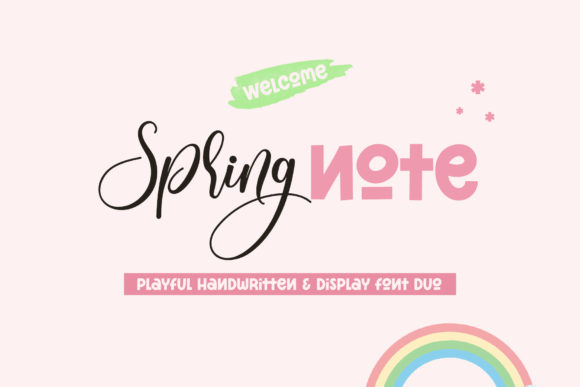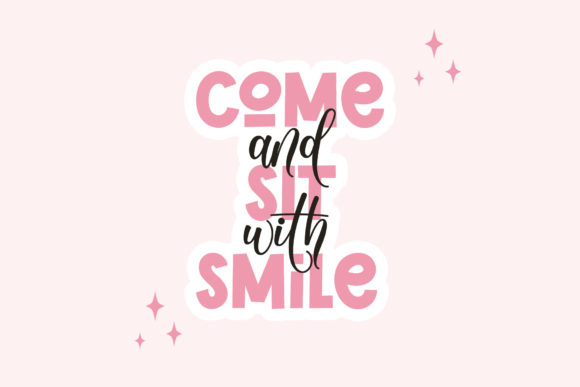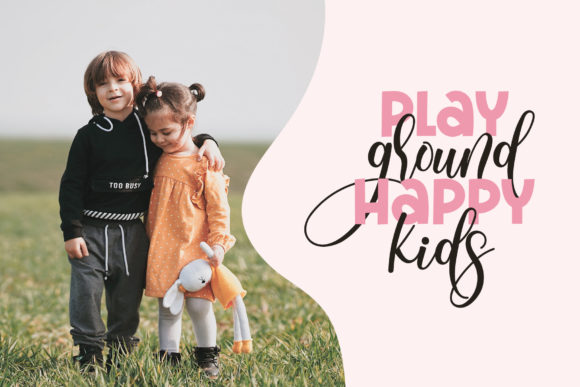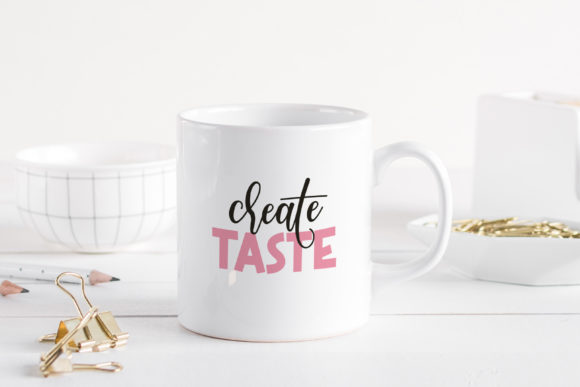
Spring Note Font
About the Spring Note Font
We are excited to introduce Spring Note Font, a must-have typeface for any serious designer. Spring Note is simple and bouncy duo font (script and display).
Its simplicity and uniqueness made this font ideal for wide ranges of design projects.
Spring Note is the perfect font for any projects, such as wedding invitation, t-shirt design, crafting, sticker, quotes, sublimation, and many more.
Spring Note Font Usage Examples